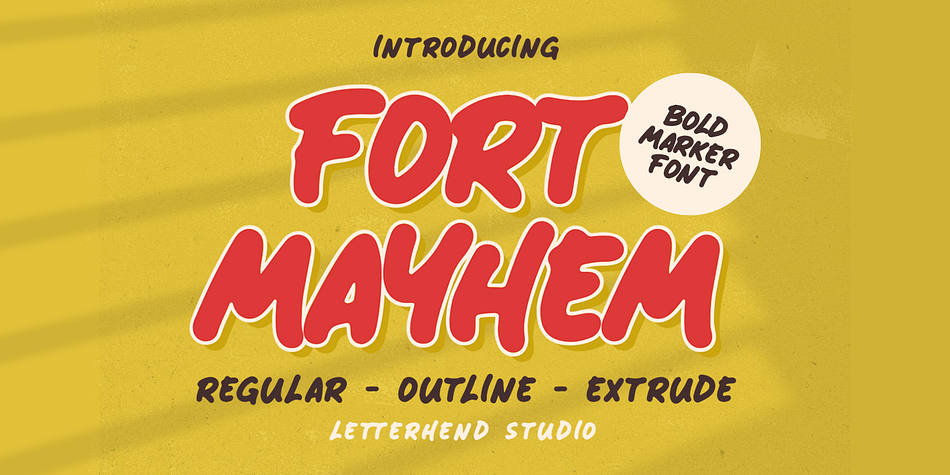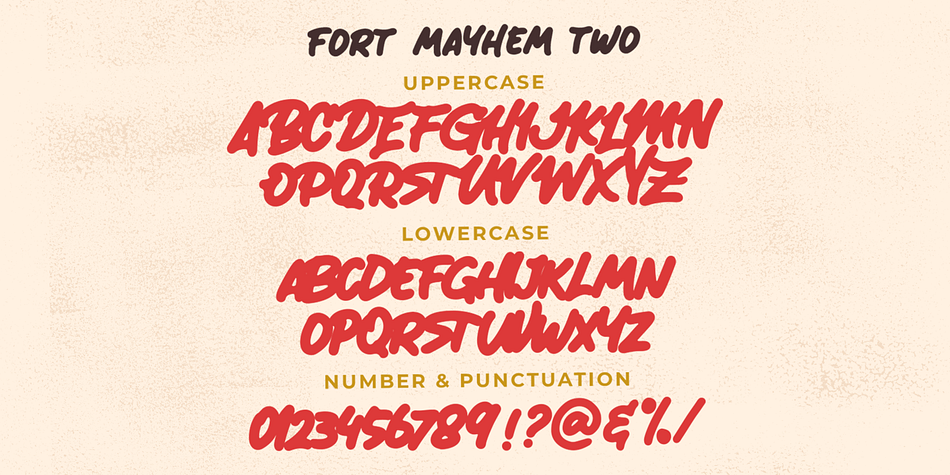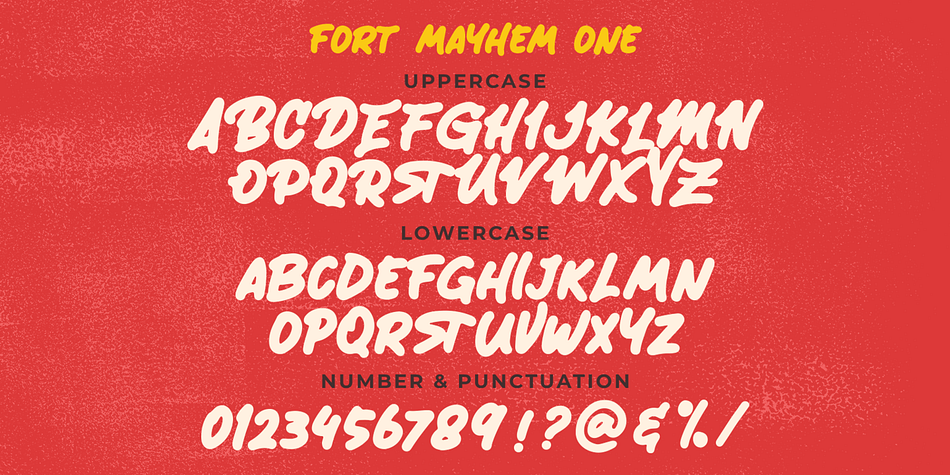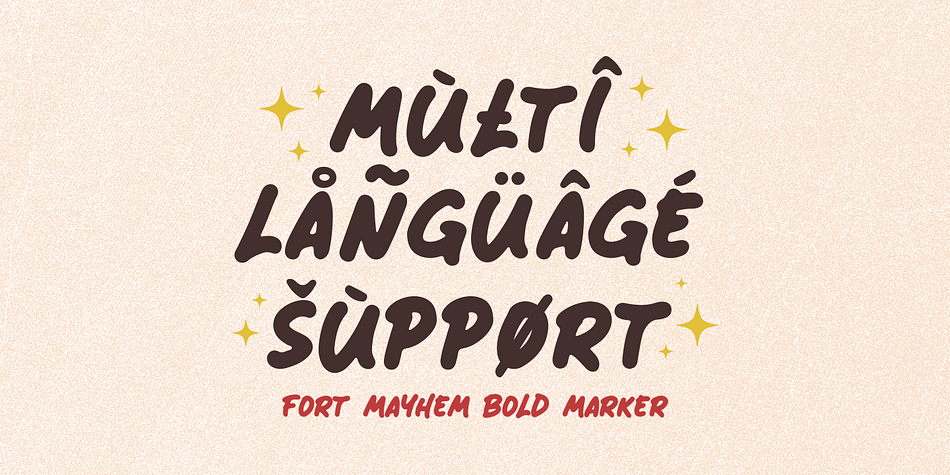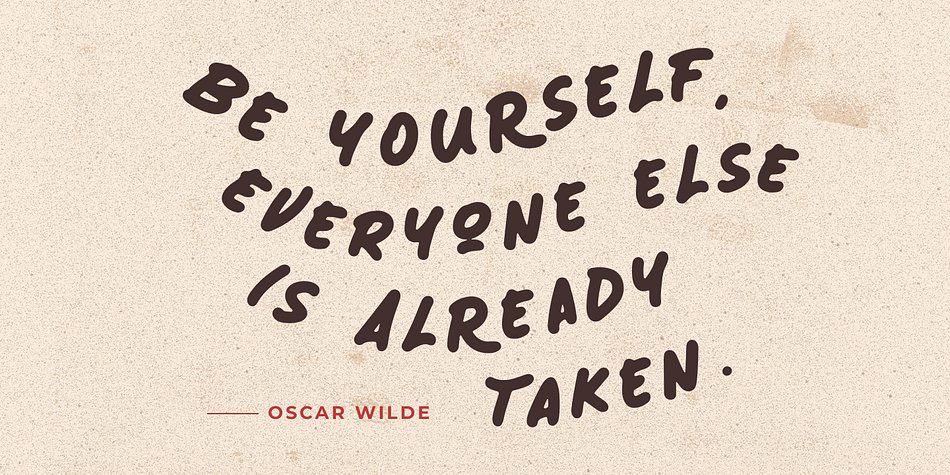
Fort Mayhem
Designed by Hendry Juanda, Fort Mayhem is a brush display font family. This typeface has six styles and was published by Letterhend Studio.
Fort Mayhem is a display marker font with hand drawn feel. The strokes make this font outstanding and looks great for title. This type of font perfectly made to be applied especially in logo, headline, signage and the other various formal forms such as invitations, labels, logos, magazines, books, greeting / wedding cards, packaging, fashion, make up, stationery, novels, labels or any type of advertising purpose.
- 3 Styles-Regular, Extrude, & Online
- numbers and punctuation
-multilingual
- alternates / swashes and ligatures